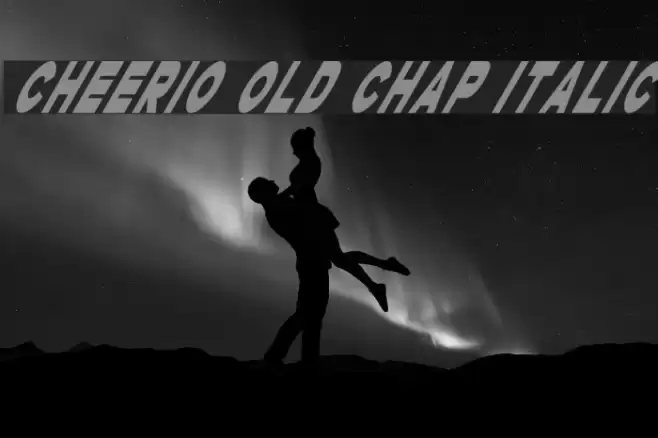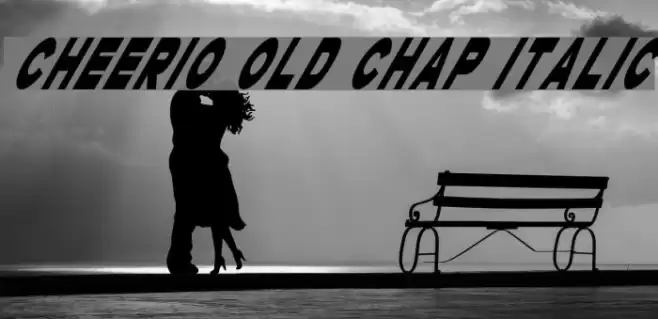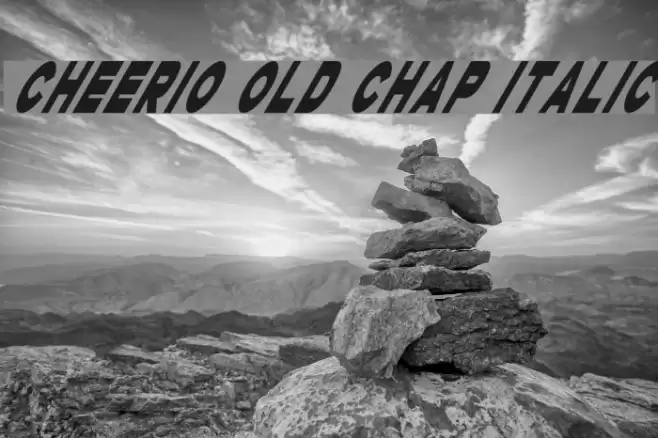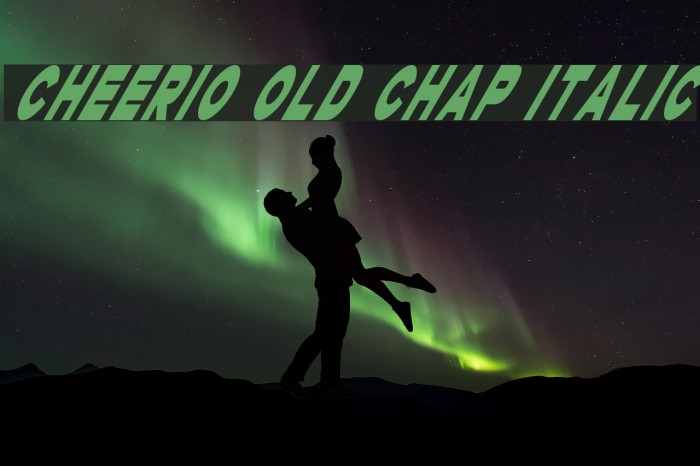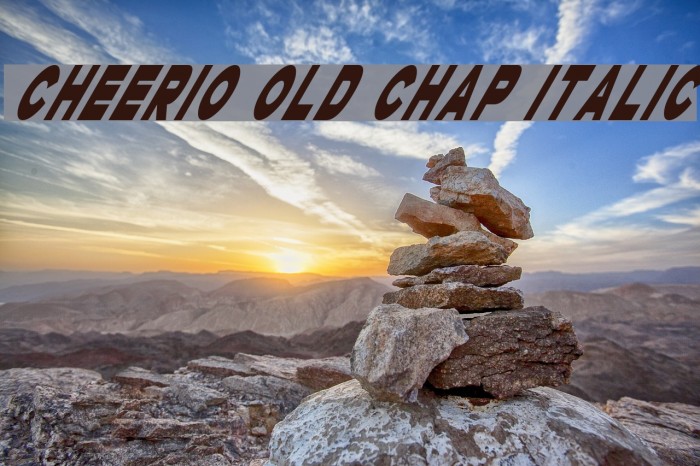
Cheerio Old Chap Italic Font
Cheerio Old Chap Italic Description
This font features a bold and dynamic italic style with a strong forward slant, giving it a sense of motion and energy. The characters are thick and robust, with sharp angles and a slightly condensed form that enhances its impactful appearance. The uppercase and lowercase letters maintain a consistent style, ensuring readability while adding a touch of flair. The numerals and special characters are designed to match the boldness of the alphabet, making them suitable for attention-grabbing headlines or titles. Overall, the font exudes a modern and assertive vibe, perfect for projects that require a bold statement.
A bold, italic font with a dynamic and modern style from Uncategorized fonts.
- Proposed Projects: Ideal for sports branding, dynamic posters, bold headlines, and modern advertising campaigns.
- Character Spacing: Tight